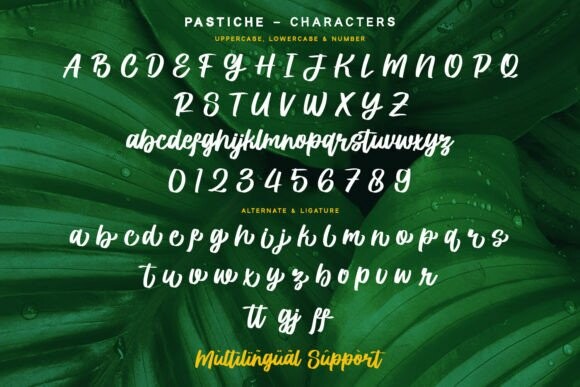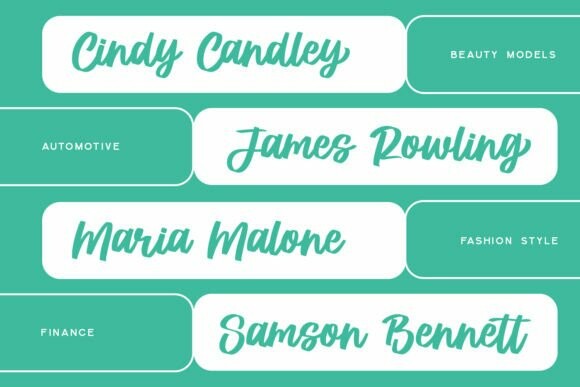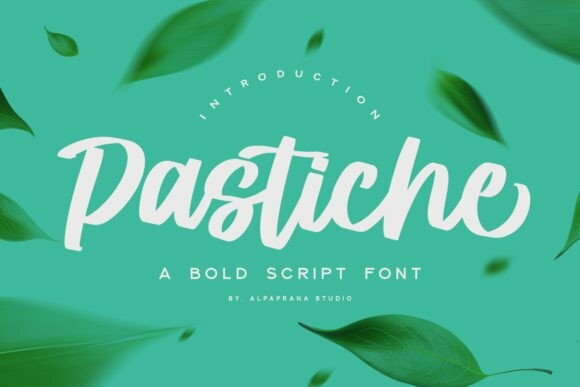
Prestiche Font
Designer: alpapranastudio
Prestiche Font is a bold script font with elegant and modern feels. It will be perfectly used for branding, logo design, lettering, logotype, clothing, posters, magazines, packaging, posters, shopping bags, t-shirts, book covers, photography, special events, and more.